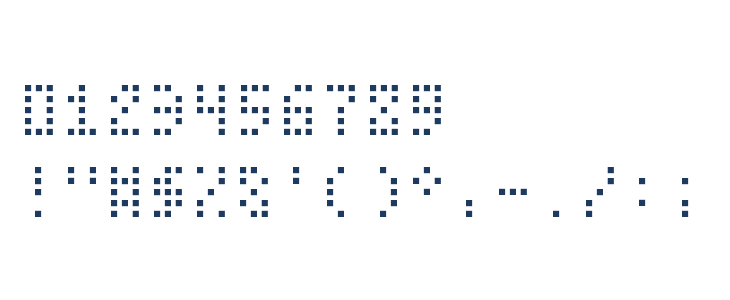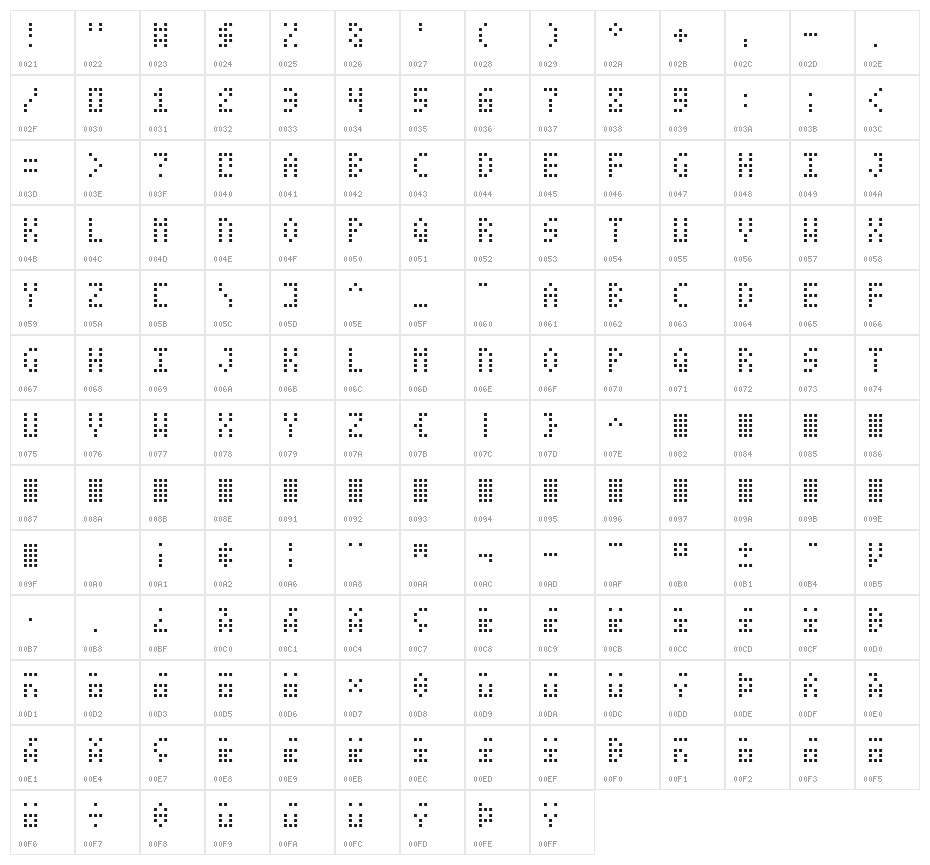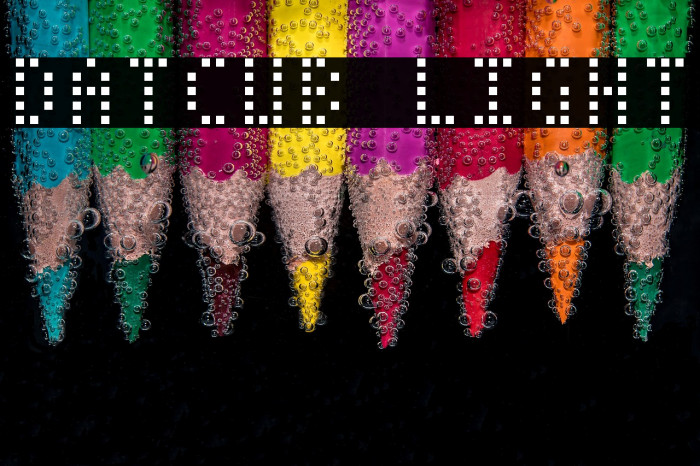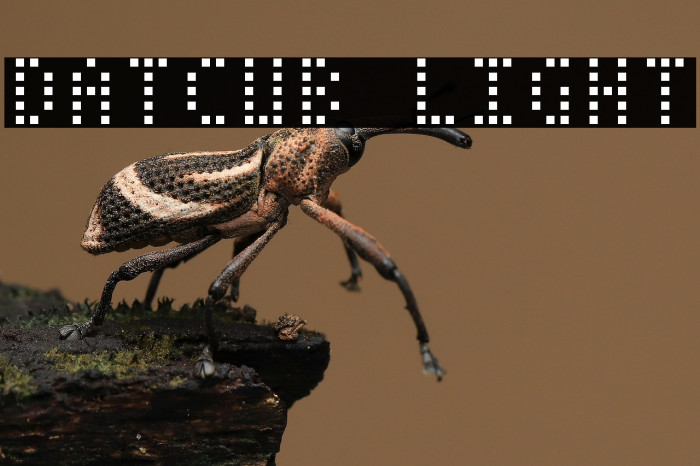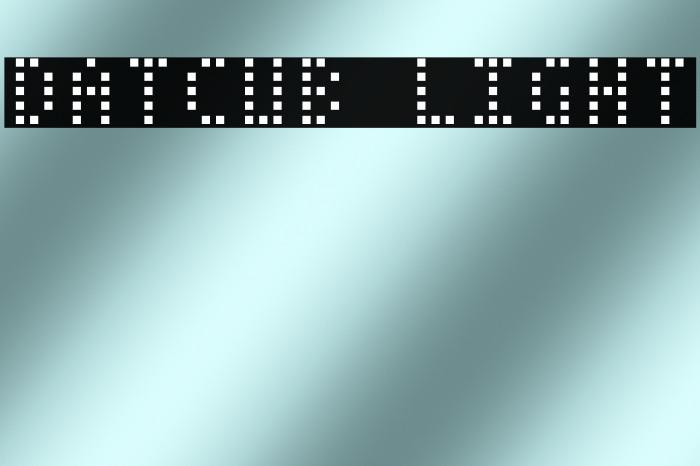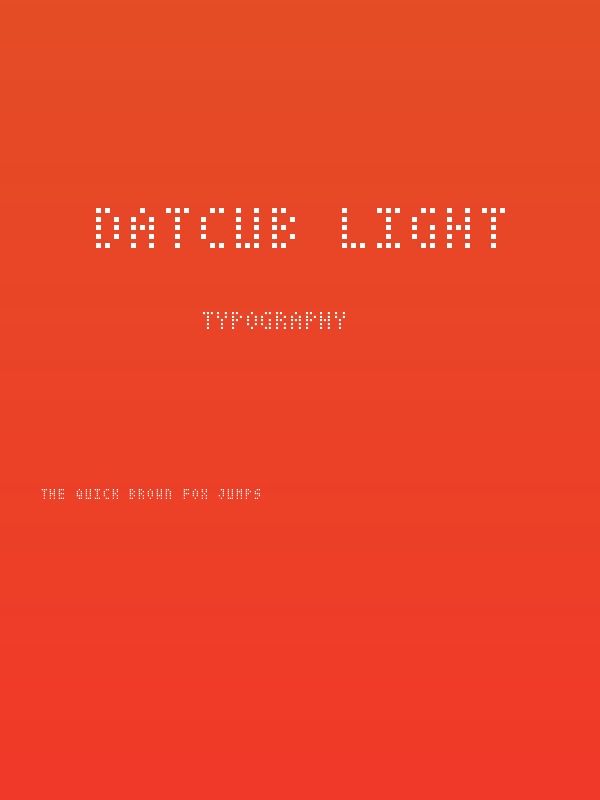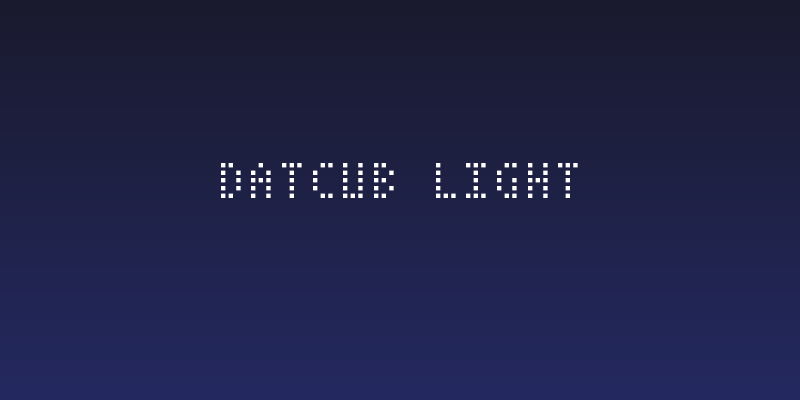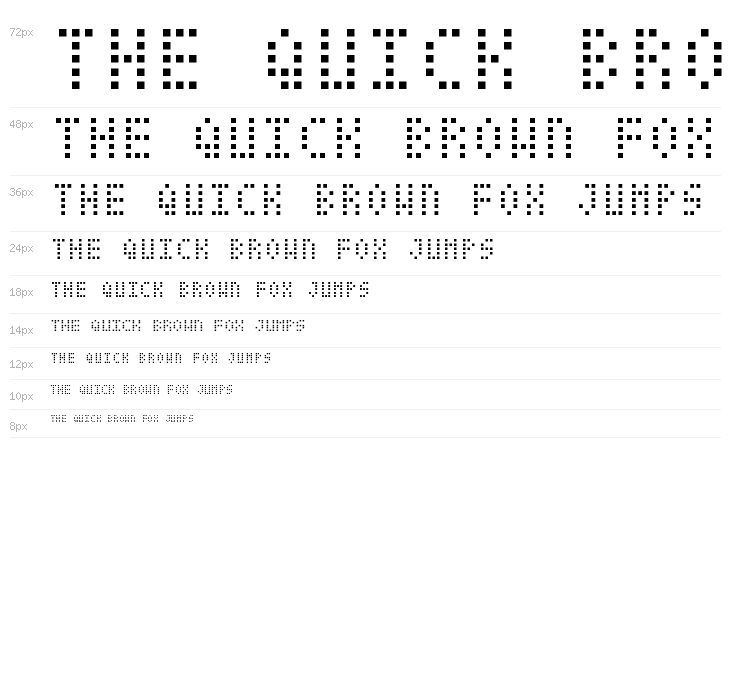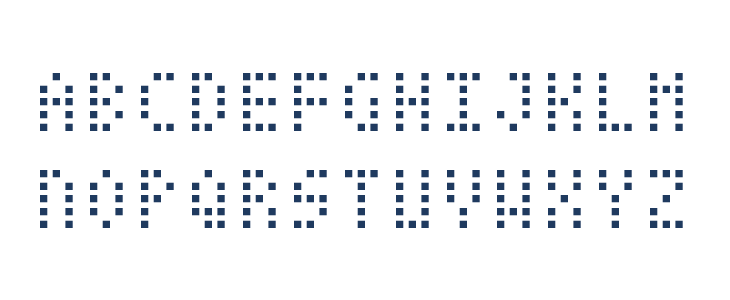
DatCub Light Font
DatCub Light Description
This font features a unique dot matrix design, where each character is composed of a grid of small, evenly spaced dots. The style is reminiscent of digital displays or retro computing screens, offering a distinct and modern aesthetic. The uppercase and lowercase letters maintain consistent dot patterns, ensuring readability while providing a futuristic feel. Numbers and special characters follow the same dot matrix pattern, creating a cohesive look across all glyphs. This font's geometric structure and uniformity make it ideal for projects that require a digital or tech-inspired theme.
| Use Case | Headlines, Logos, Digital displays |
| Proposed Projects | Ideal for digital displays, tech-themed designs, retro computing projects, and modern art installations. |